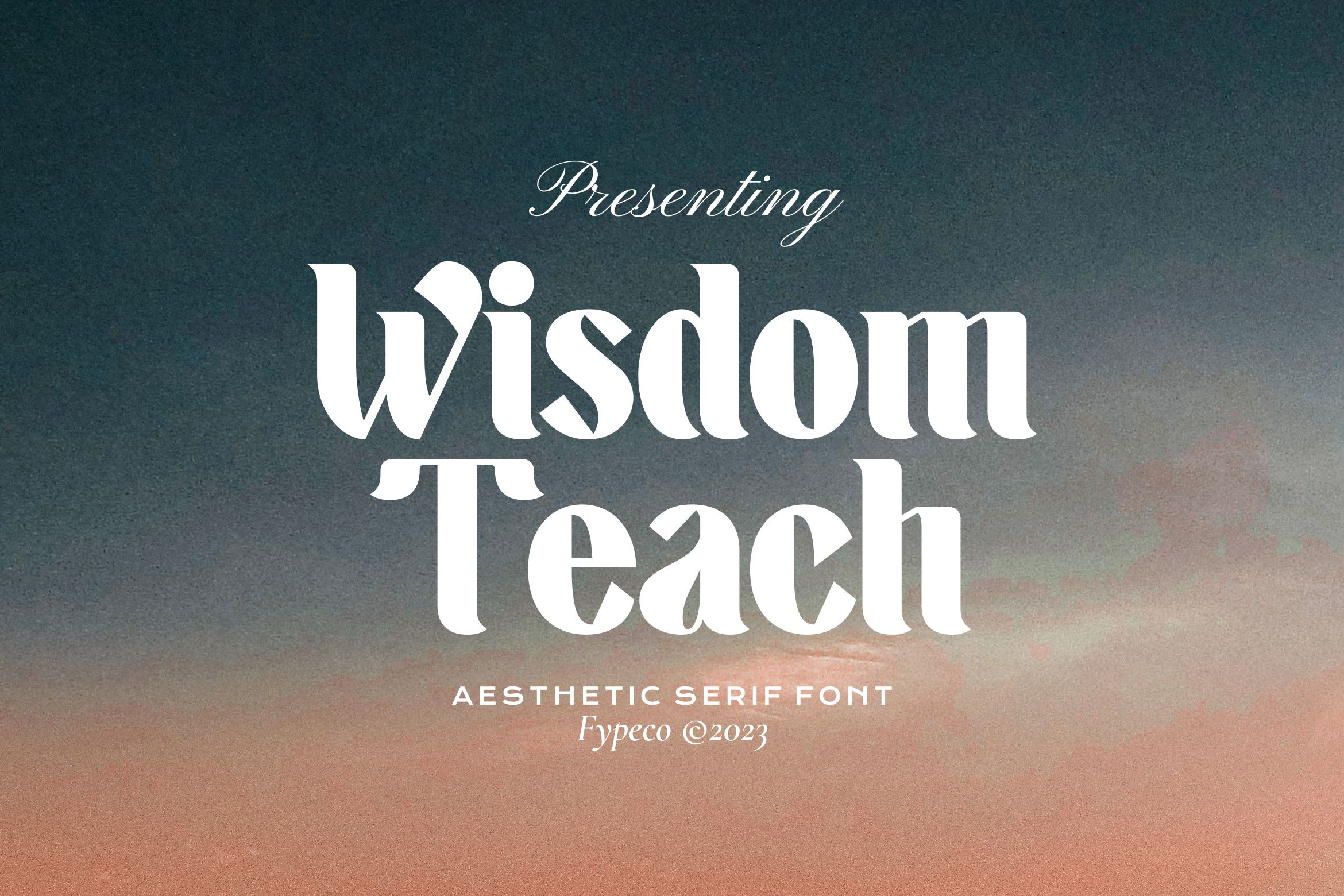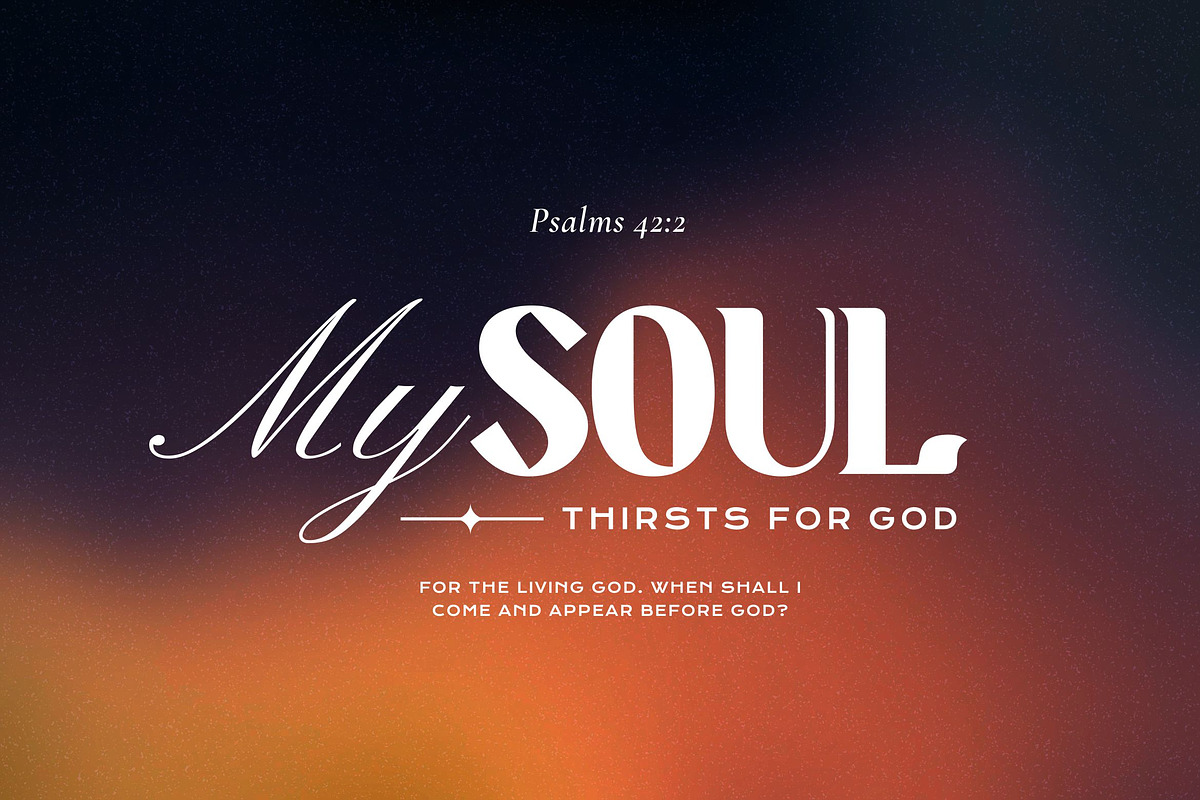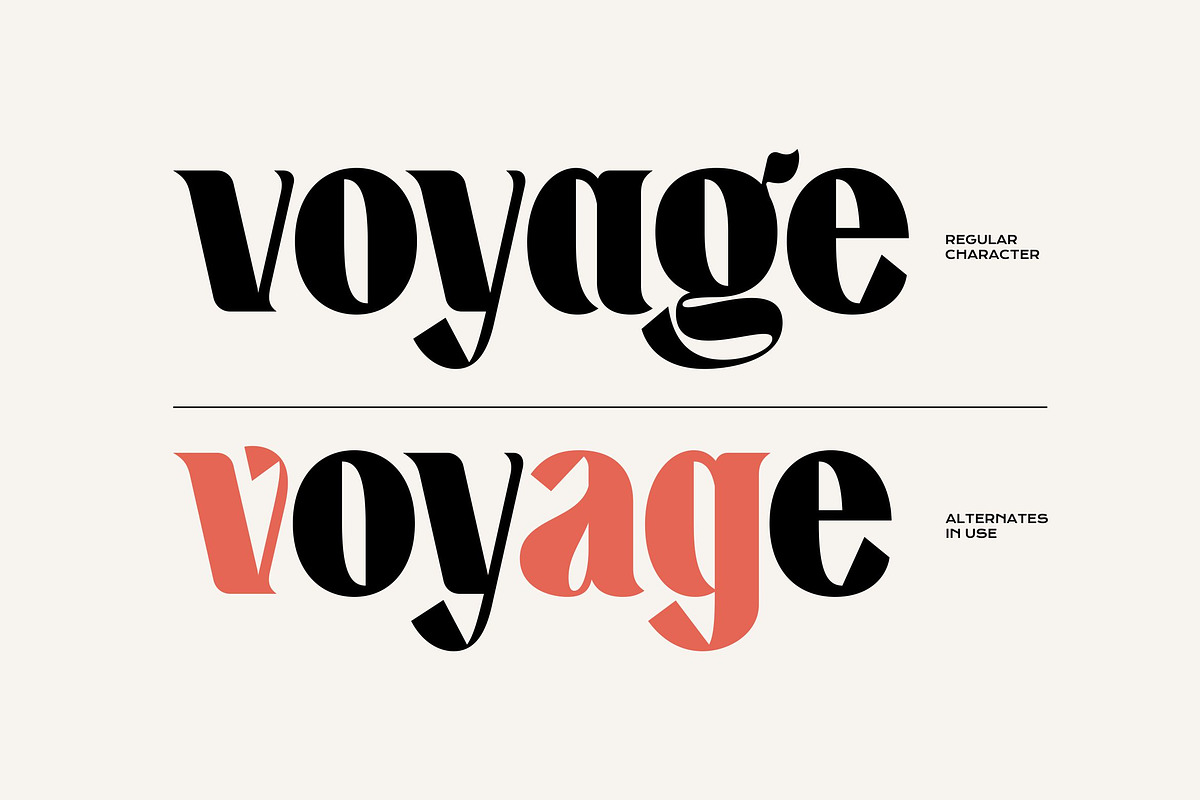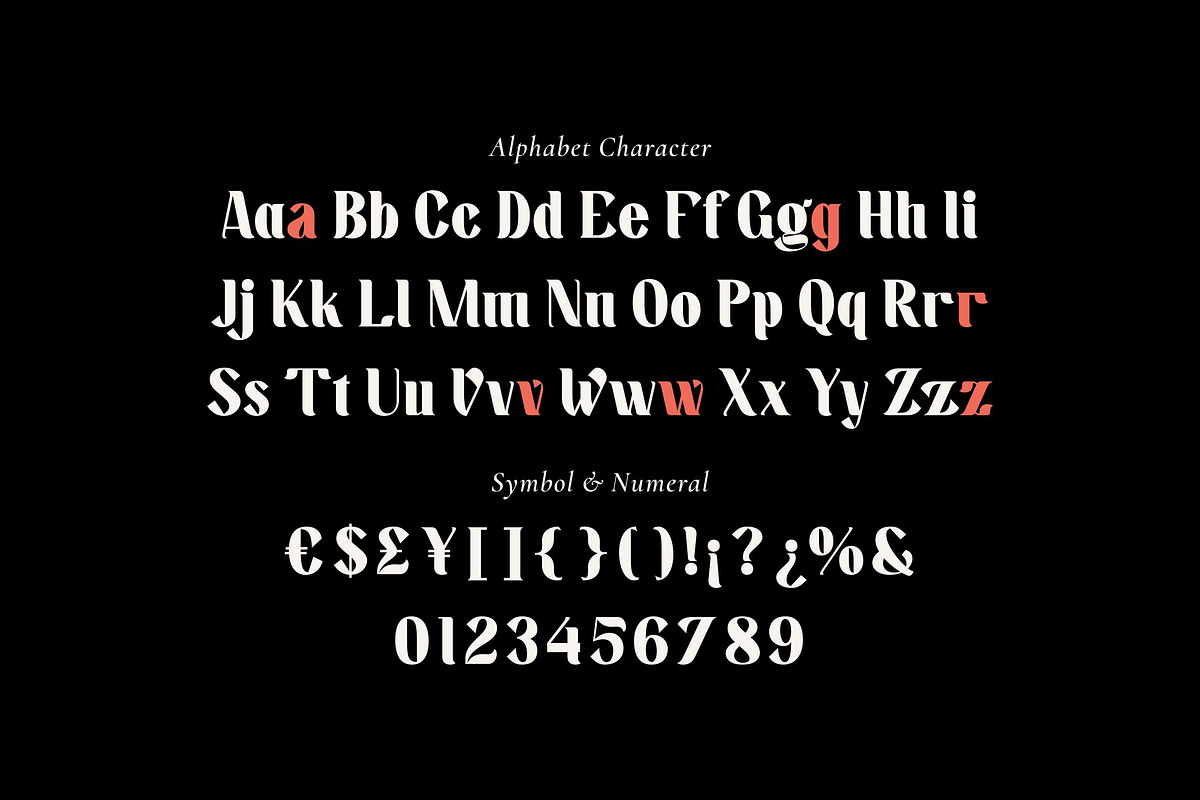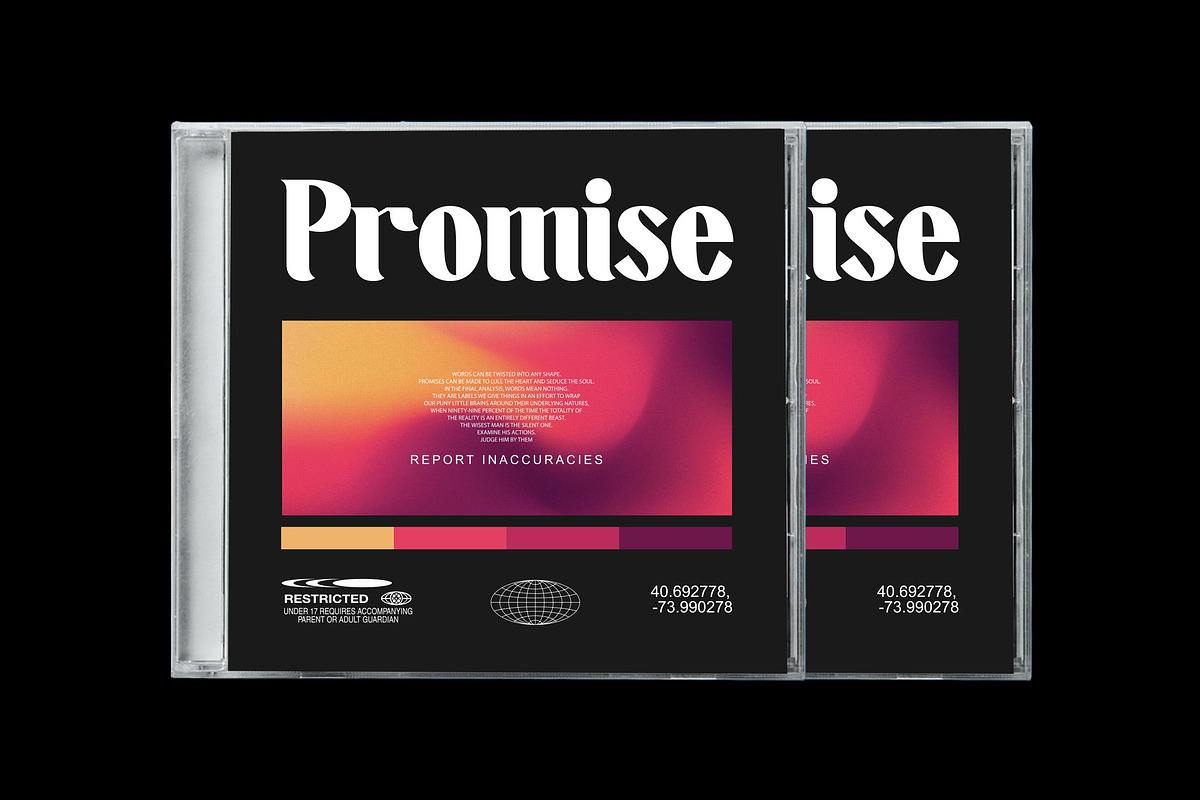
Wisdom Teach - Aesthetic Serif Font
Wisdom Teach is aesthetic serif font with alternates character. This is a unique font that will attract attention. Perfect for headlines, typography, quotes, magazines, websites, titles, posters, branding and logos